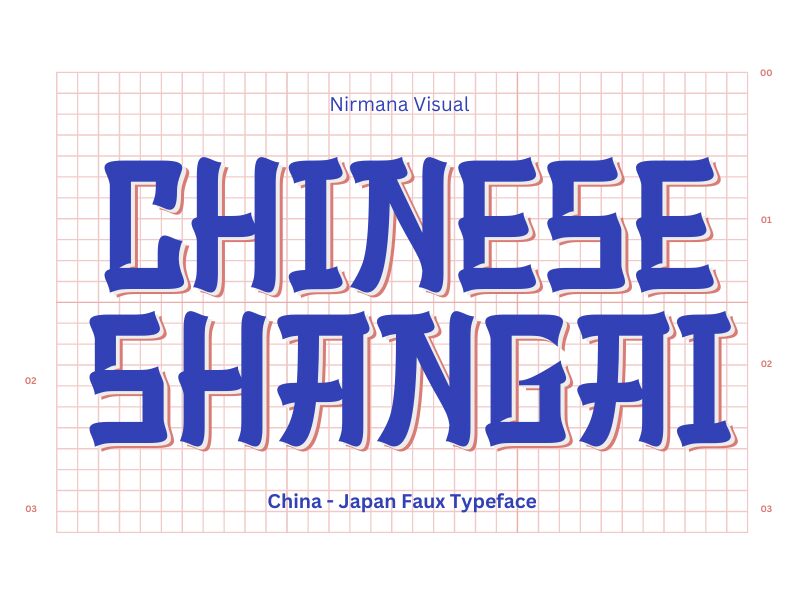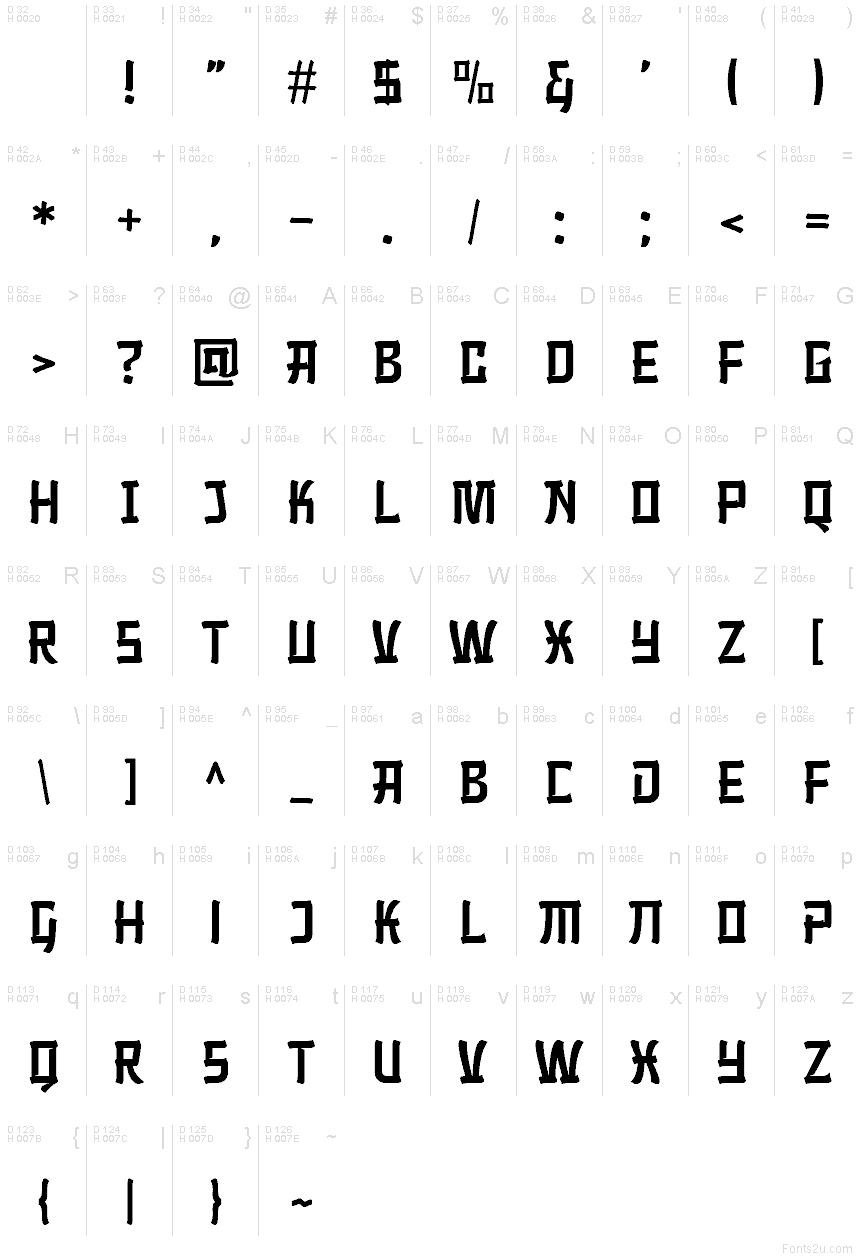
Chinese Shangai font by Nirmana Visual is a free foreign chinese style font that turns any headline into a bold, cinematic title card. The letters feel carved and slightly squared, like brushstrokes translated into chunky, geometric blocks, with tight spacing that creates a strong horizontal rhythm. It has a solid, ink-heavy weight that reads clearly even at smaller sizes, but really comes alive when you let it stretch wide across a layout.
Using Chinese Shangai in your projects immediately signals an East-Asian inspired theme for restaurant logos, food packaging, movie posters, game titles, event flyers, and signage. This free font works beautifully when you keep it for short phrases and pair it with a clean sans serif for supporting text. Set it large, give it room to breathe, and let the bold, sculpted forms carry the atmosphere.